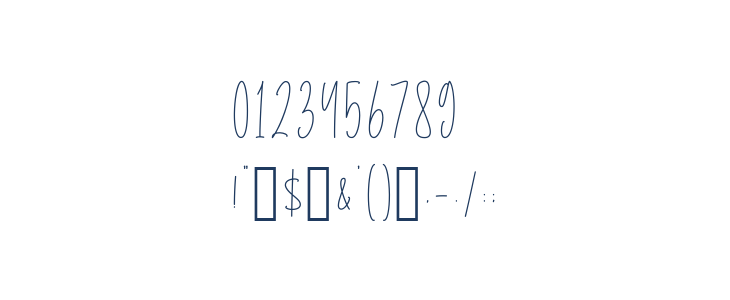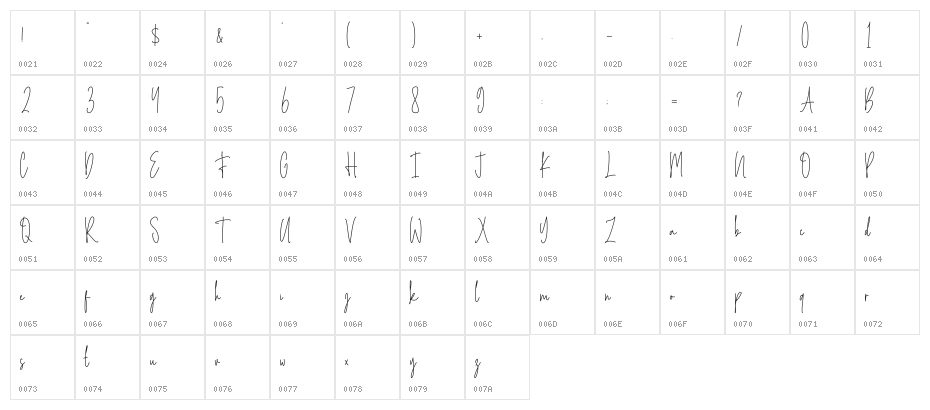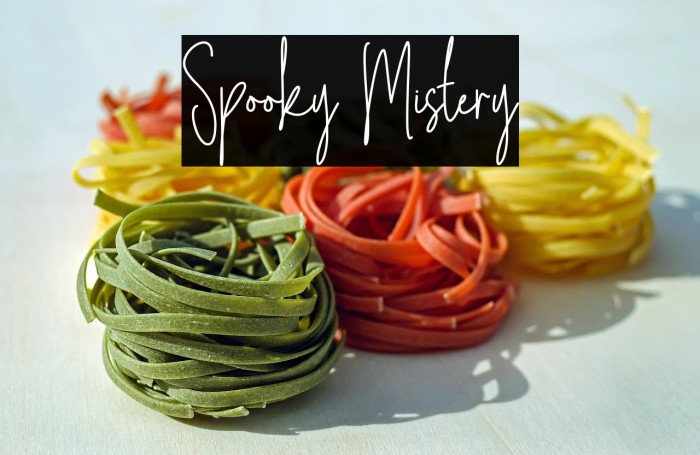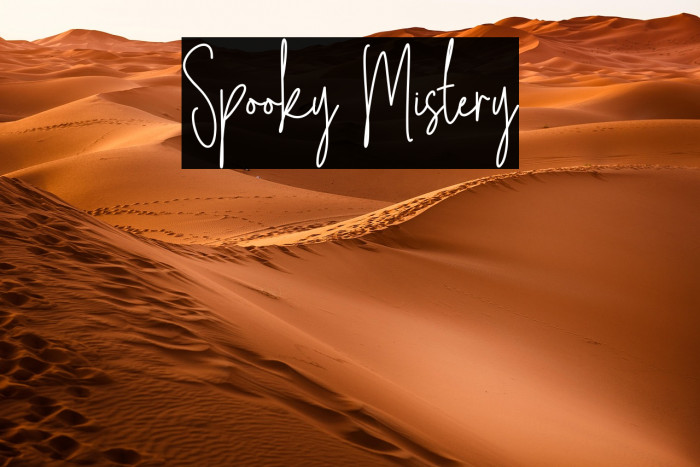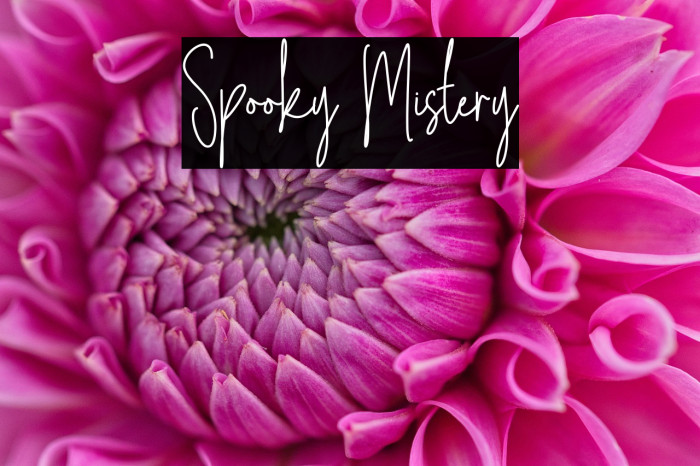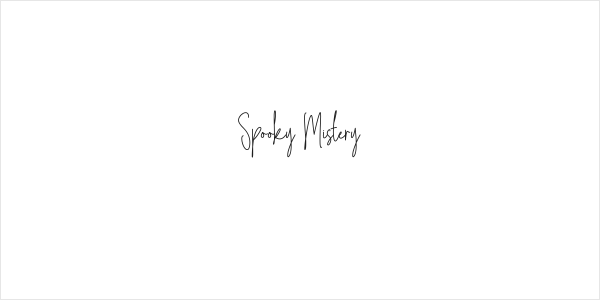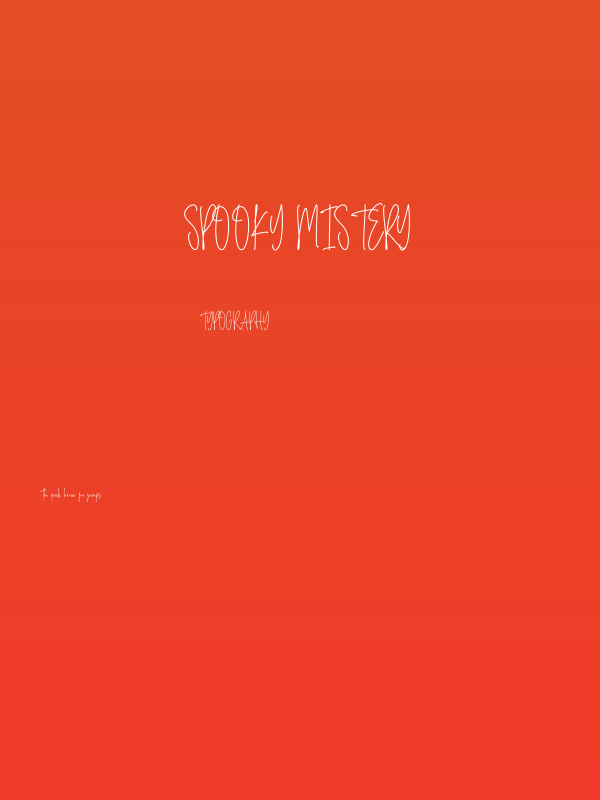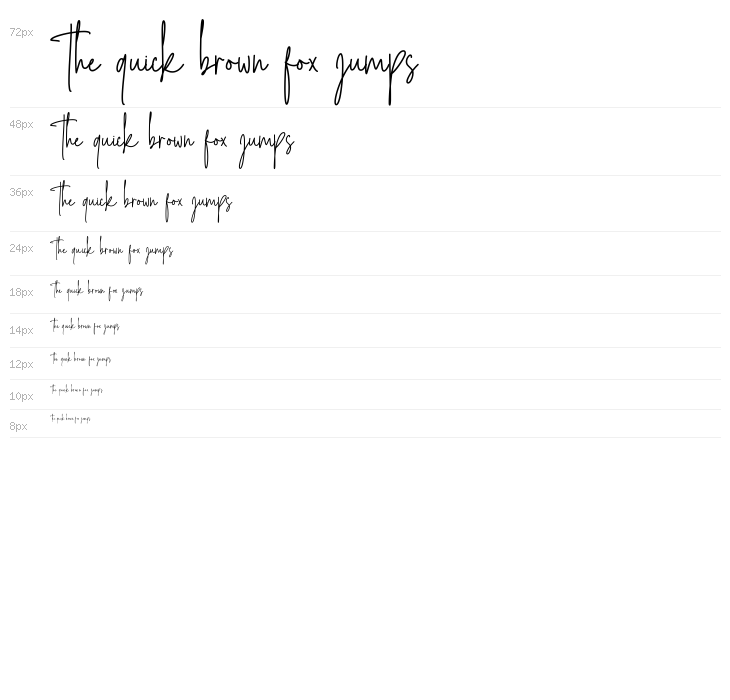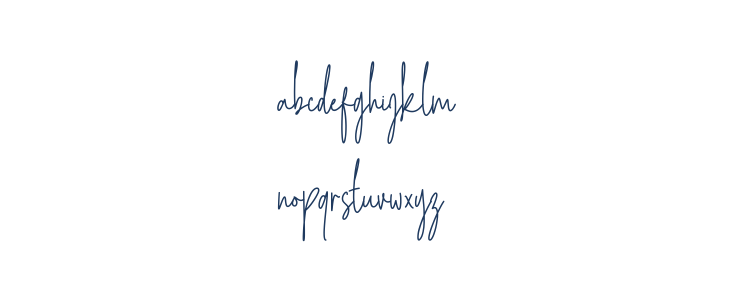
Spooky Mistery Font
Spooky Mistery Description
This font features a whimsical and playful handwritten style, characterized by its tall, narrow letters and slightly irregular strokes. The uppercase letters are particularly elongated, giving them a dramatic flair, while the lowercase letters maintain a more casual and approachable appearance. The numbers and special characters follow the same quirky aesthetic, ensuring a cohesive look across all text elements. The overall design is reminiscent of a personal handwriting style, making it ideal for projects that require a touch of personality and uniqueness. Its thin strokes and varying line thicknesses add to the font's charm, creating a sense of movement and dynamism.